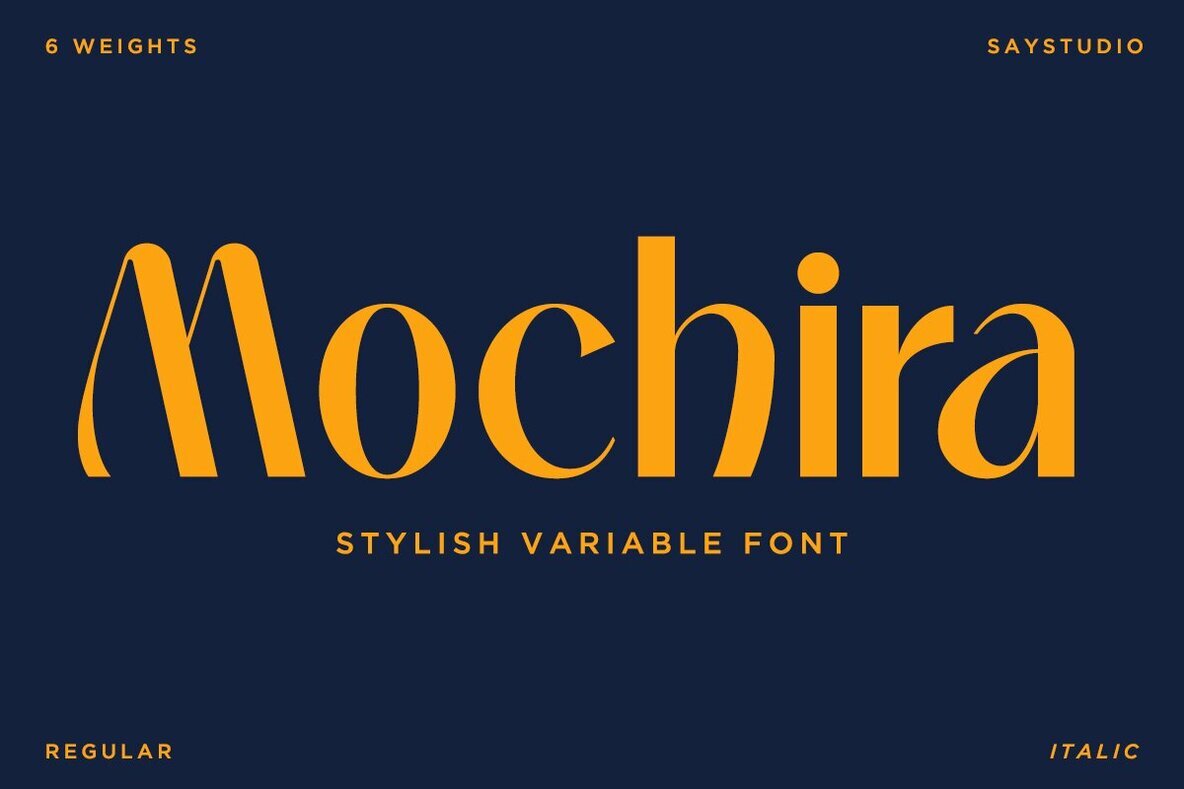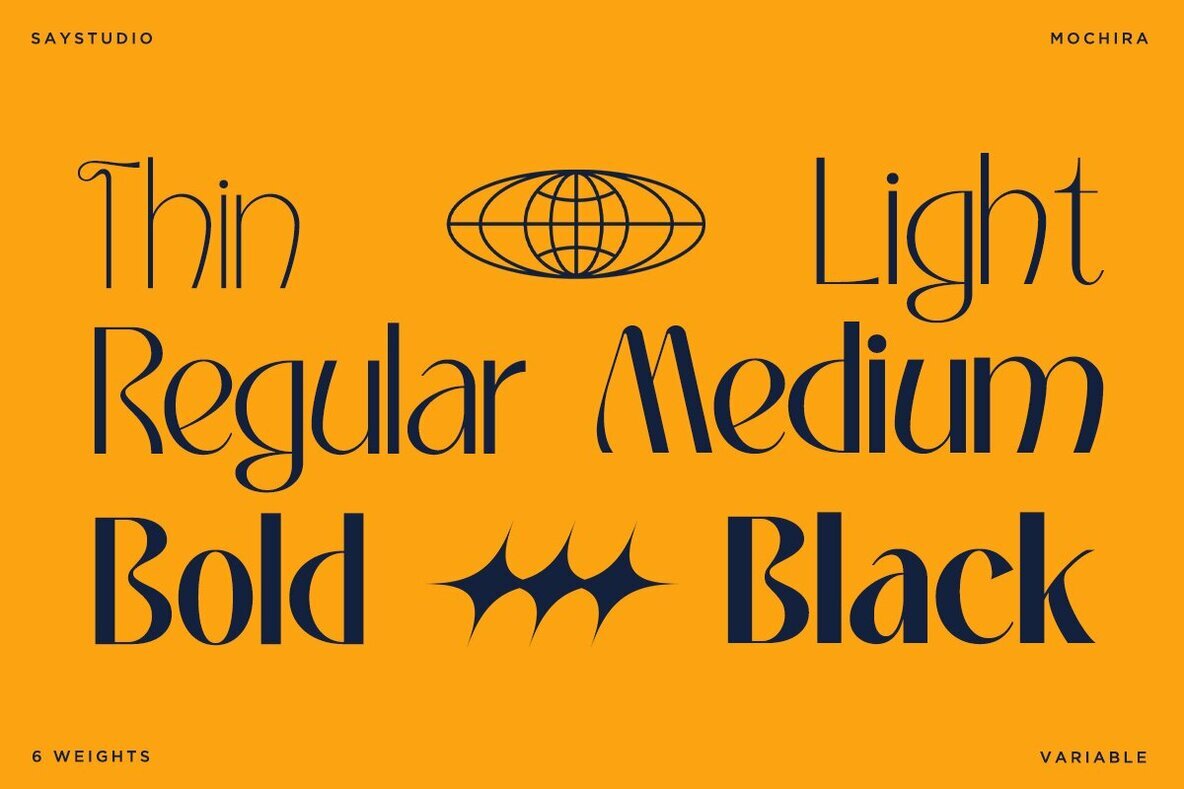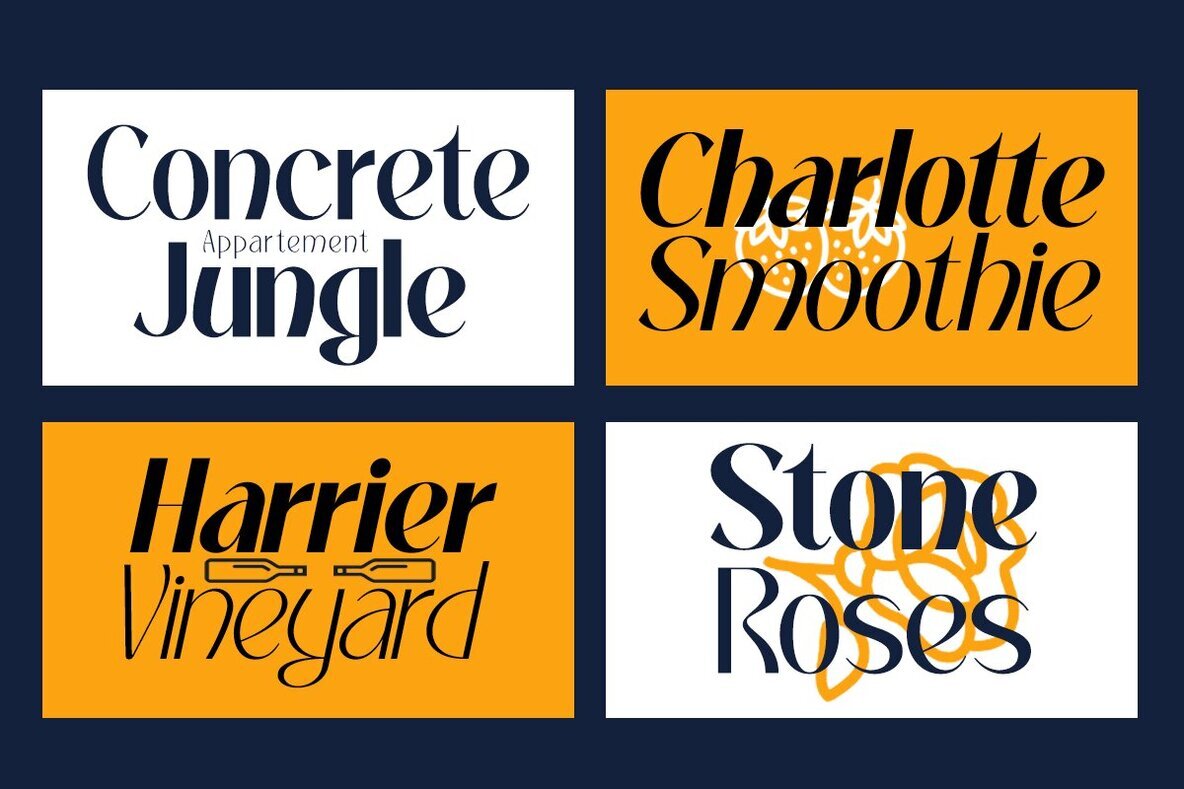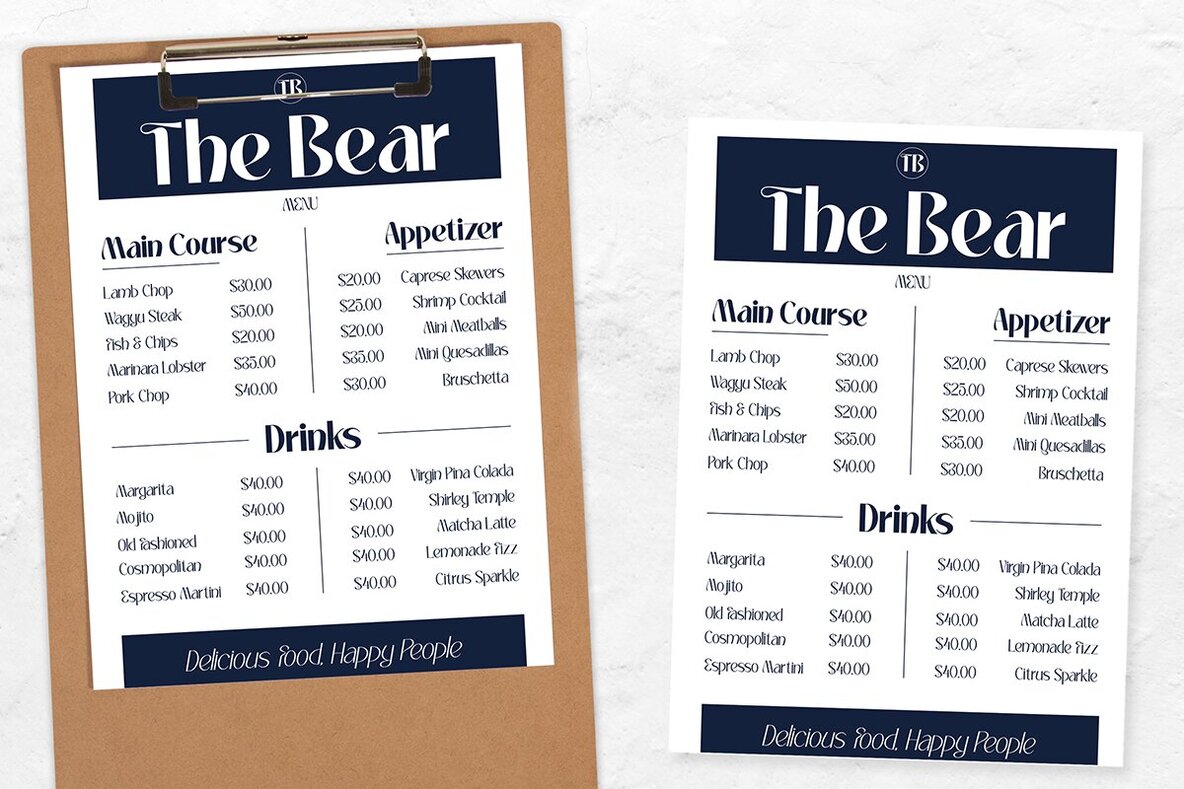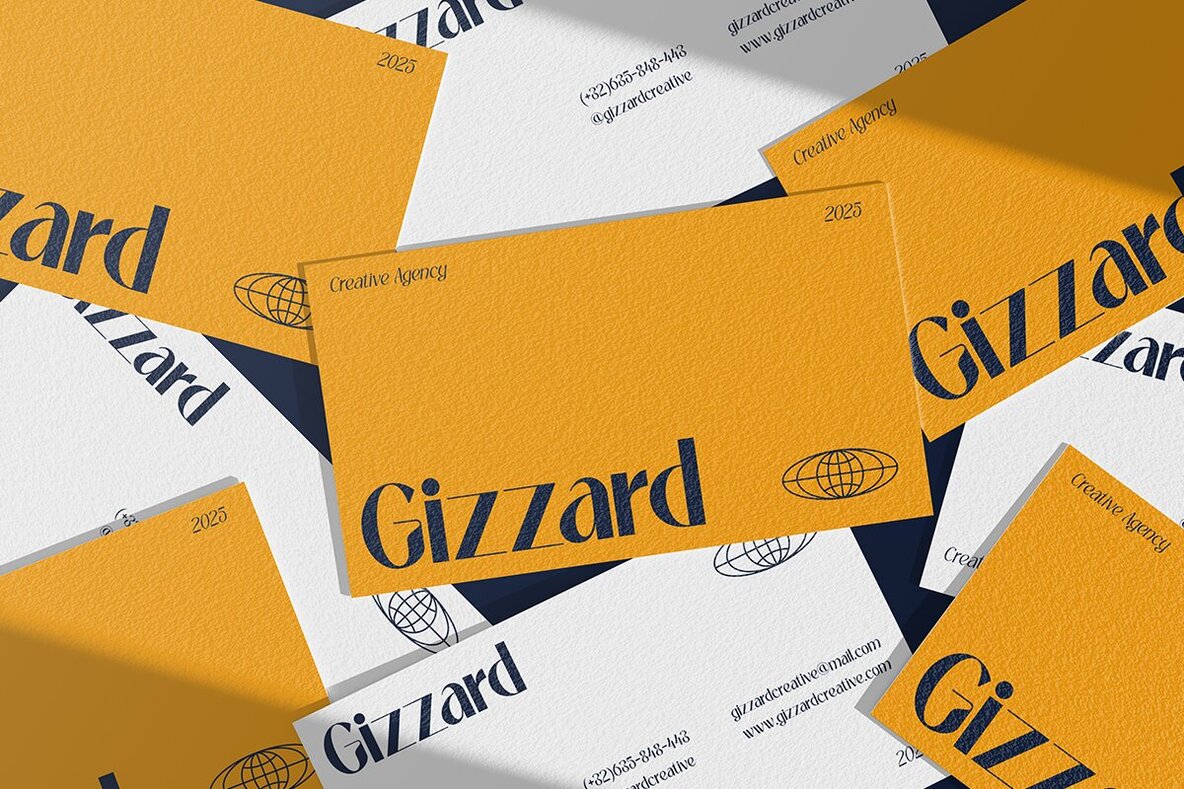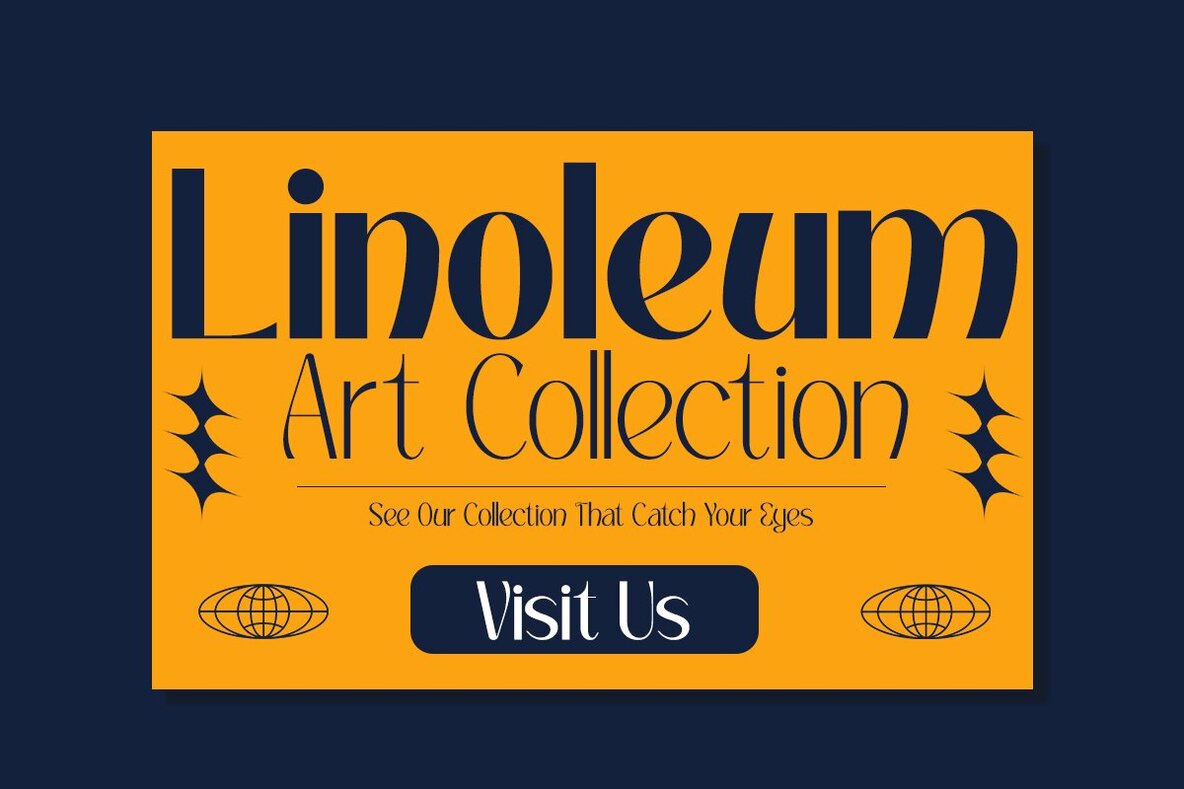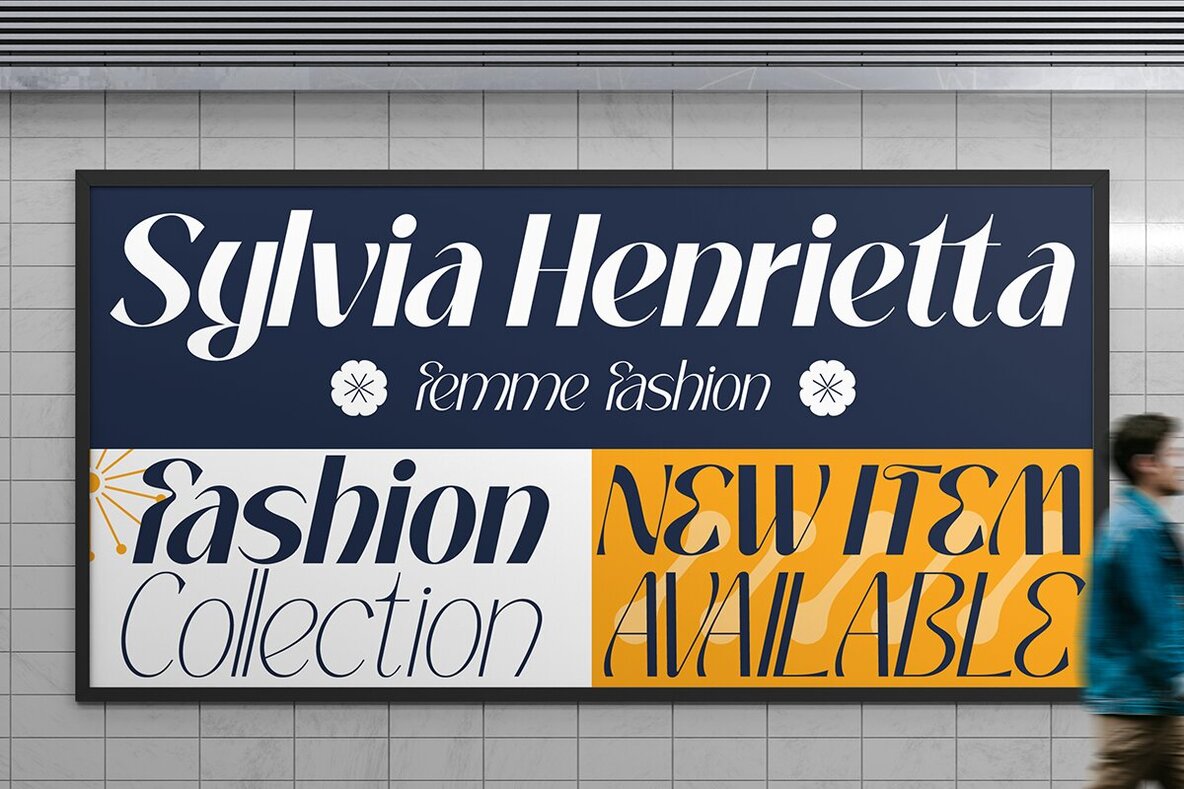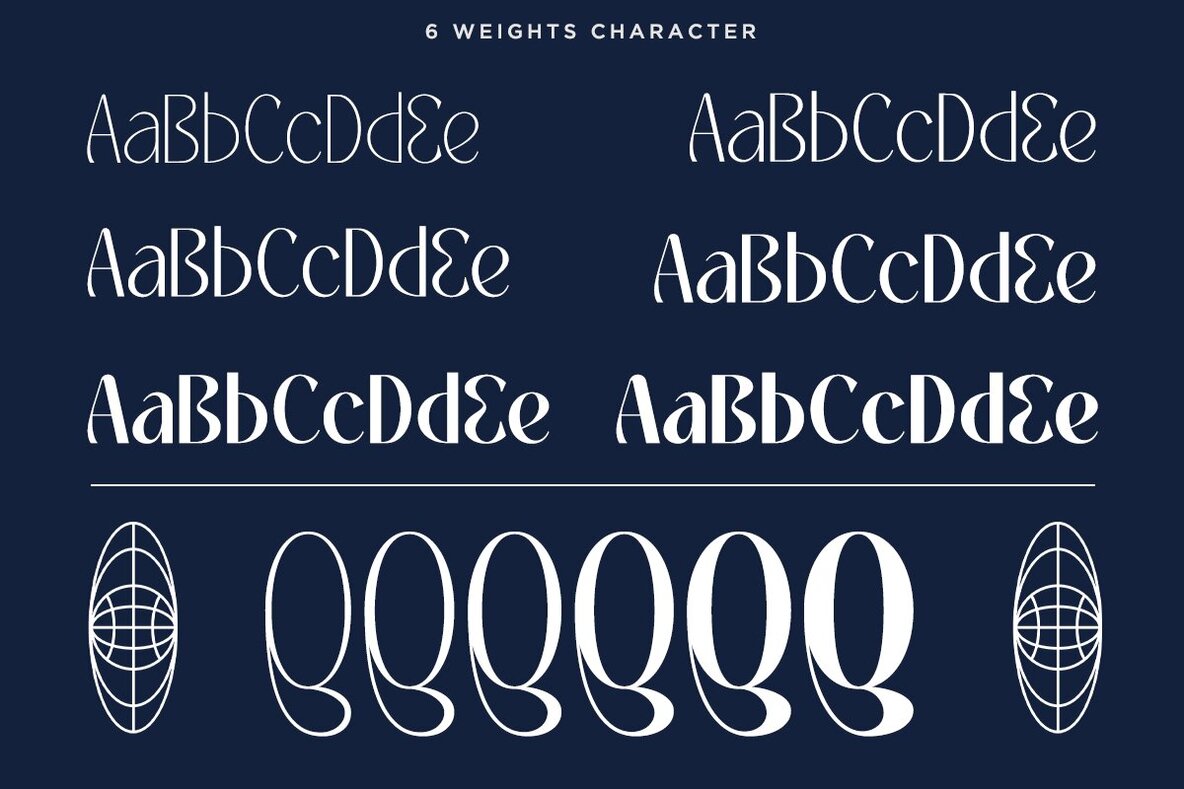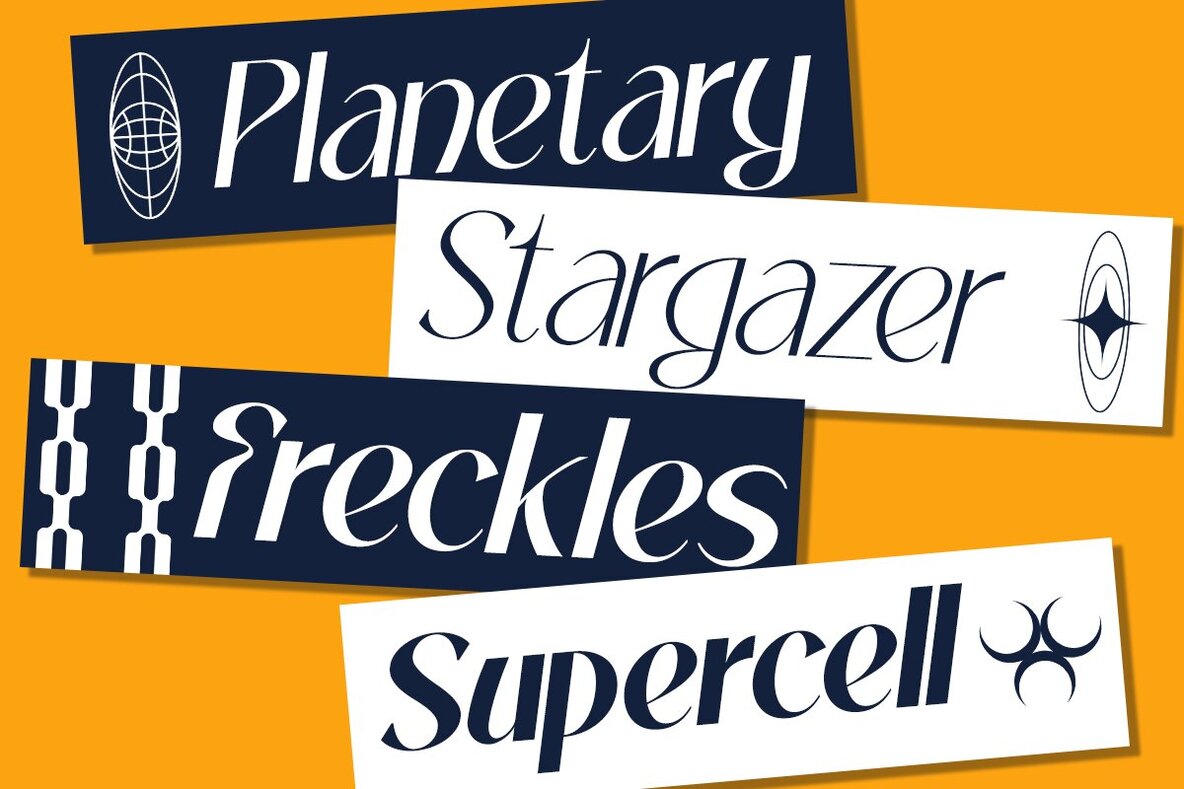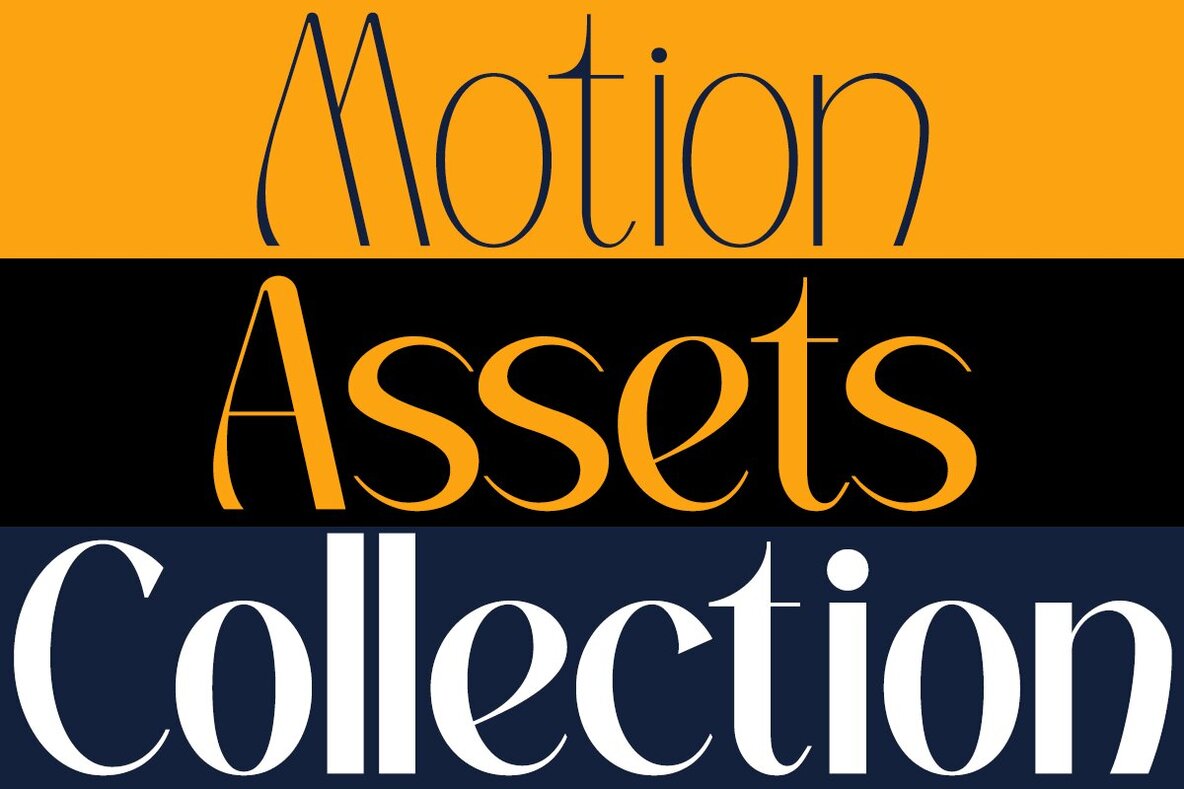
Mochira Font
Discover Mochira, a stylish variable sans font that merges versatility with timeless elegance. Crafted with care, this font boasts beautifully flowing curves and exquisite details, making it an exceptional choice for numerous design applications. Whether you're designing for display, web, or social media, Mochira complements your work with sophistication and uniqueness.Mochira: The Elegance of Versatility